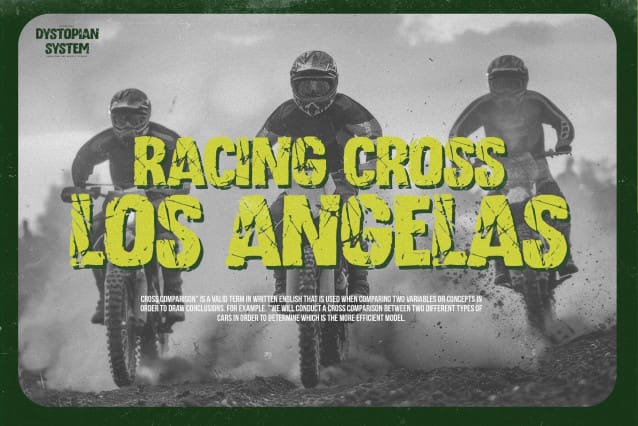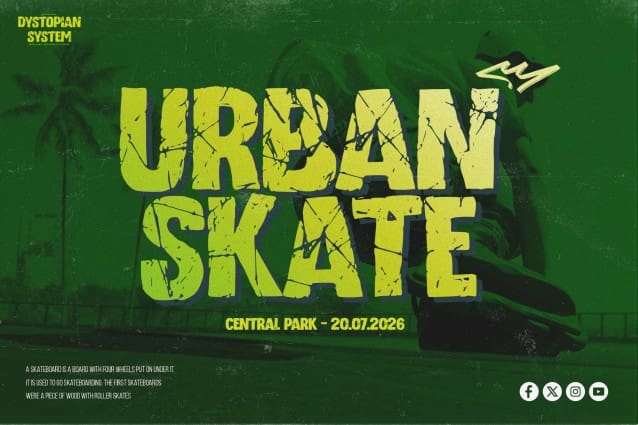
Dystopian System Font
Dystopian System Font – This is aRough Rebel and Radical Typeface, this is a rebel font with rough font, this font is perfect for making a strong statement in your designs.